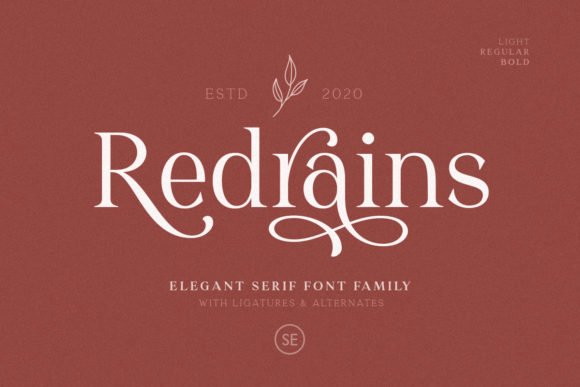
Unleash the beauty and sophistication of Redrains, a classic and elegant serif font that will transform your fashion brand or editorial designs into masterpieces. With its smooth touch and timeless appeal, Redrains is the ultimate choice for designers seeking to make a lasting impression.
Immerse yourself in the world of Redrains, where elegance and creativity intertwine to create a visual symphony. Its delicate curves and refined structure evoke a sense of luxury and sophistication, making it the perfect font for fashion brands seeking to establish a strong and memorable identity.
Step into the spotlight and let Redrains elevate your designs to new heights. Whether you're crafting a captivating logo, designing an alluring website, or creating eye-catching marketing materials, Redrains will effortlessly elevate your message and capture the attention of your audience.